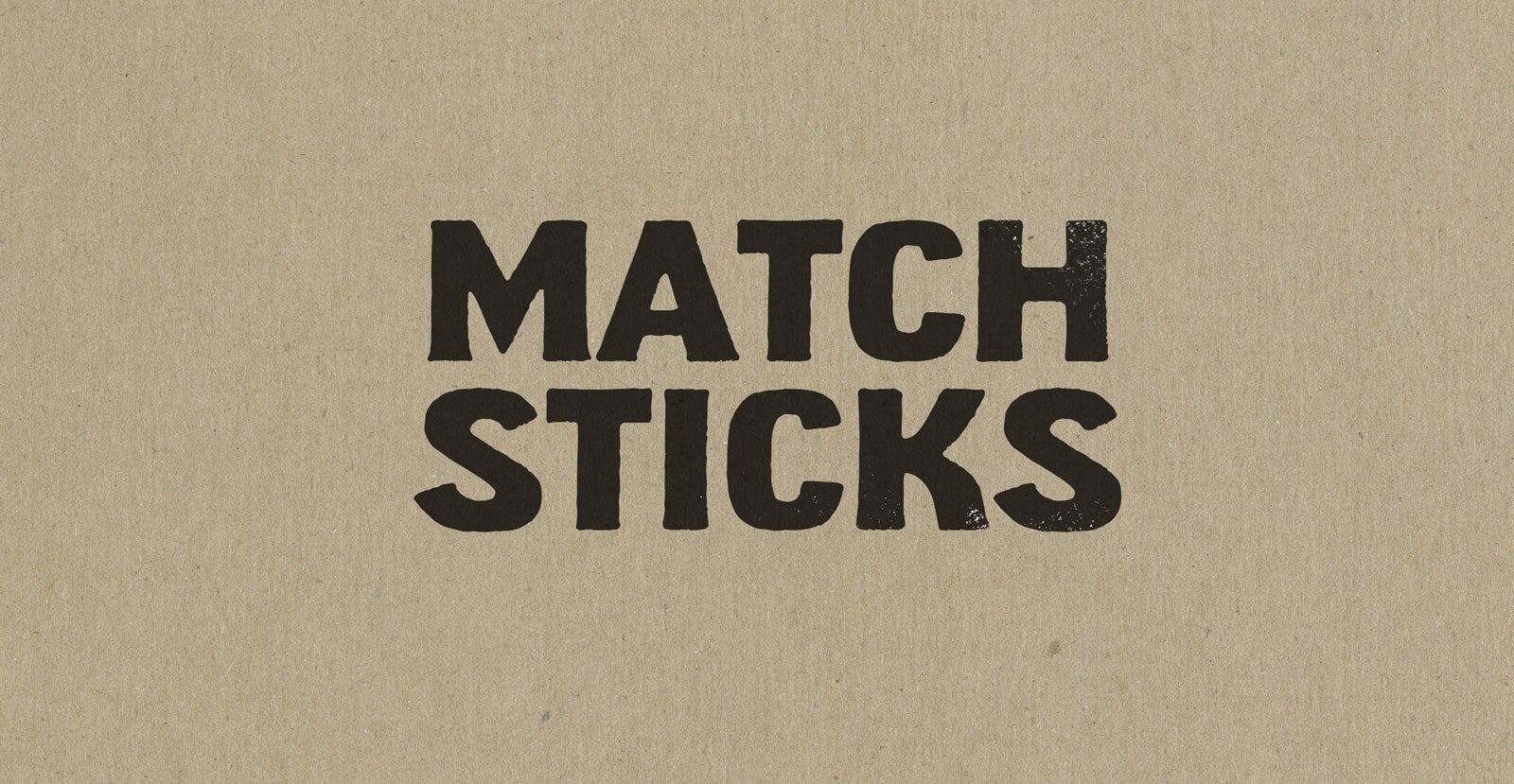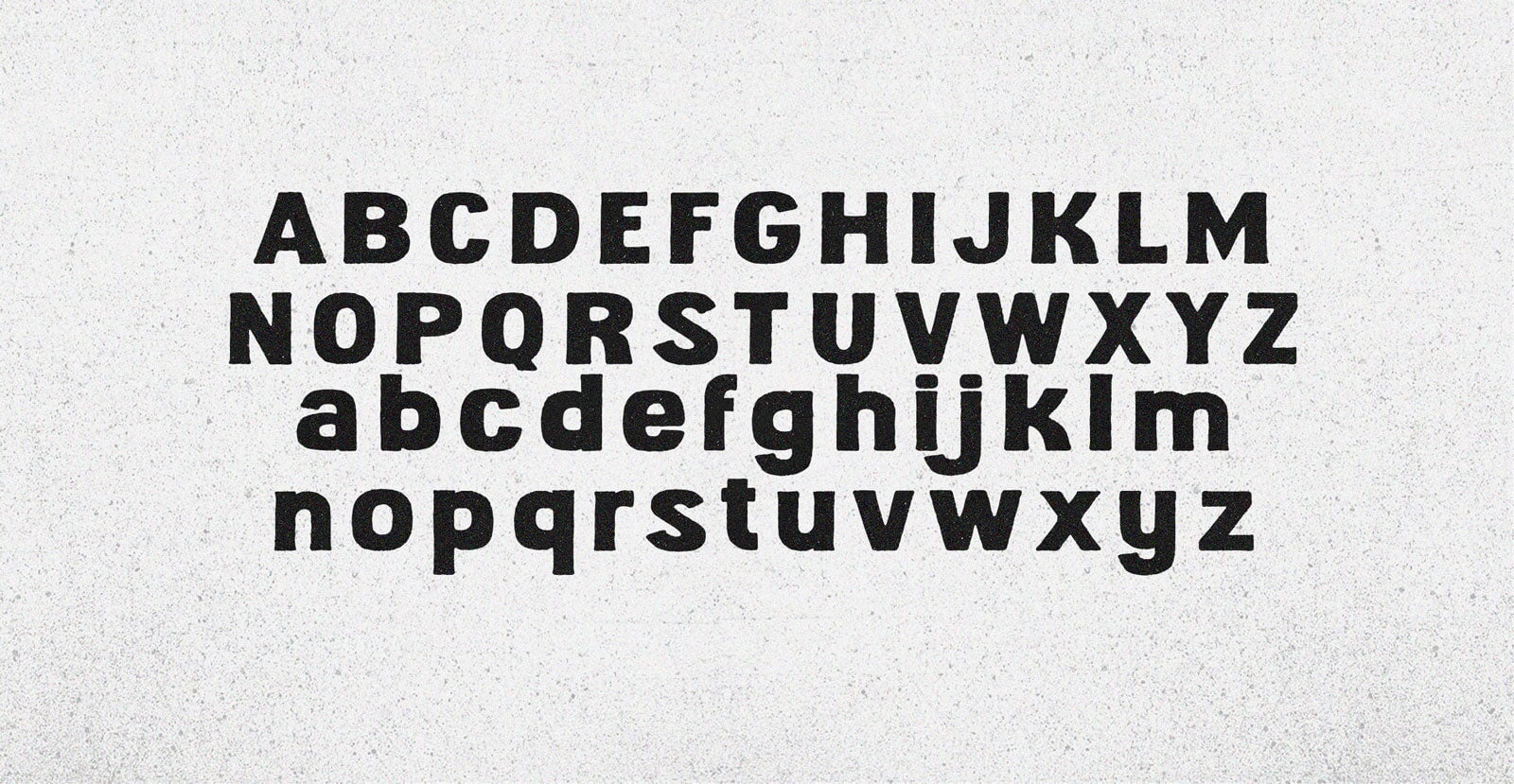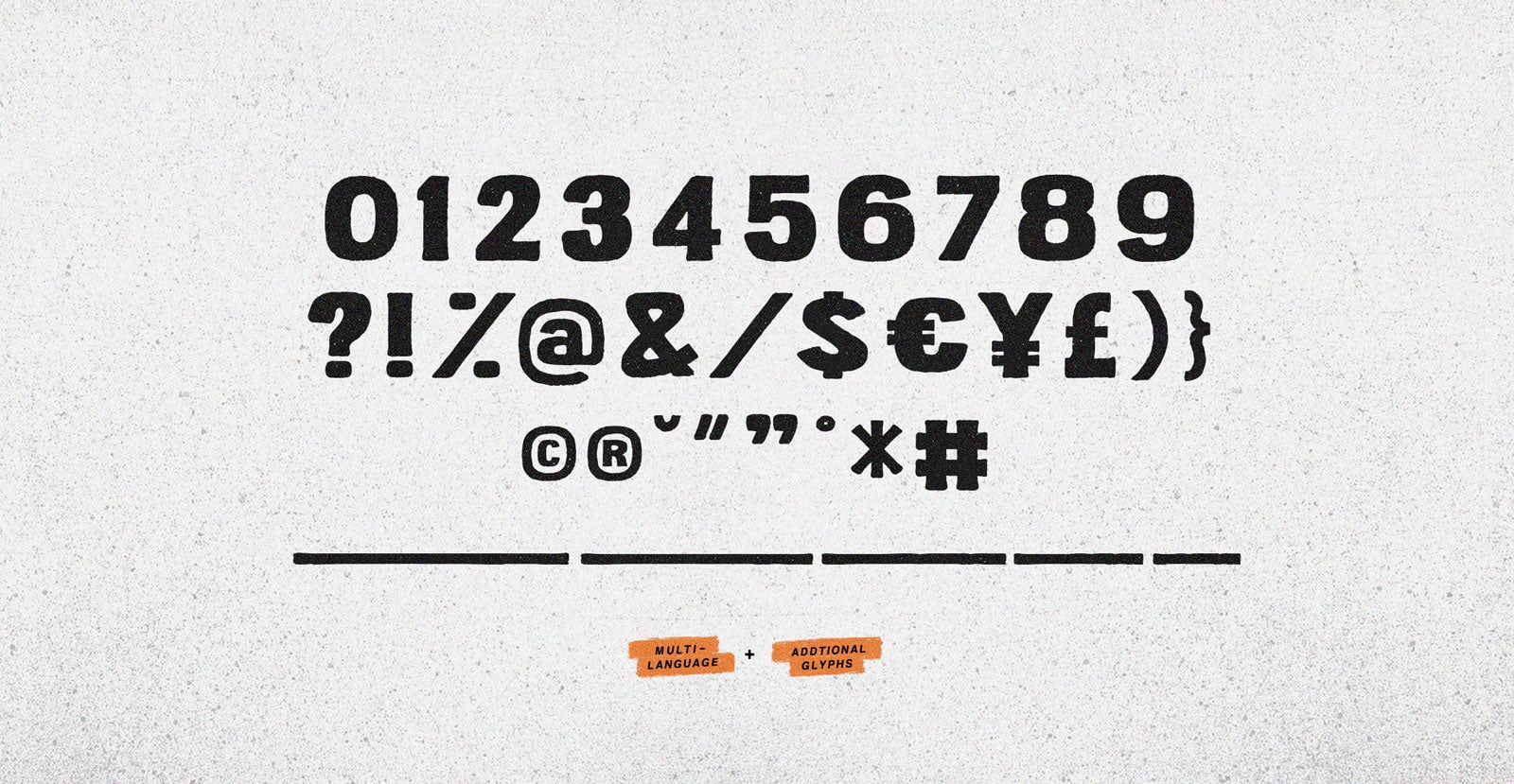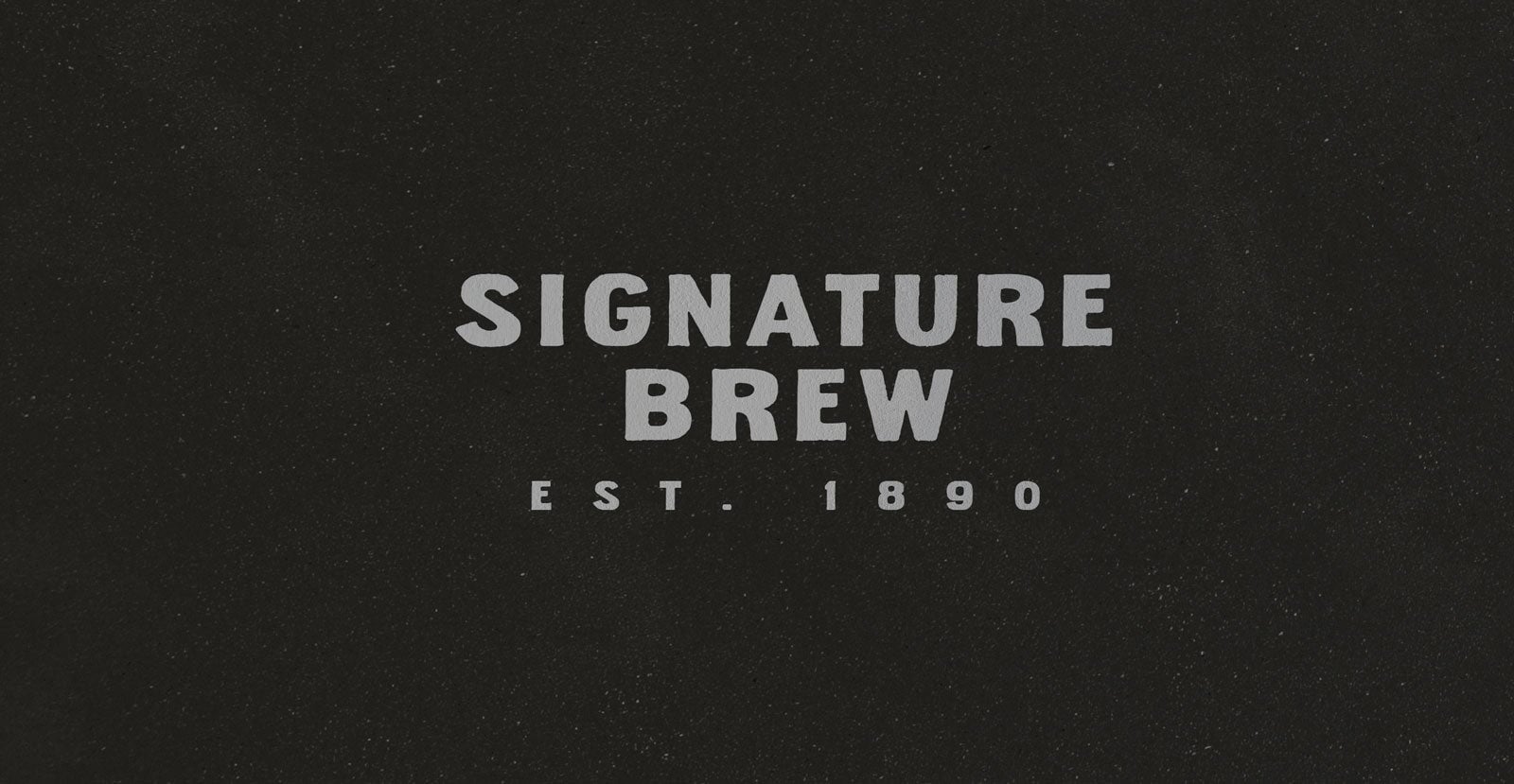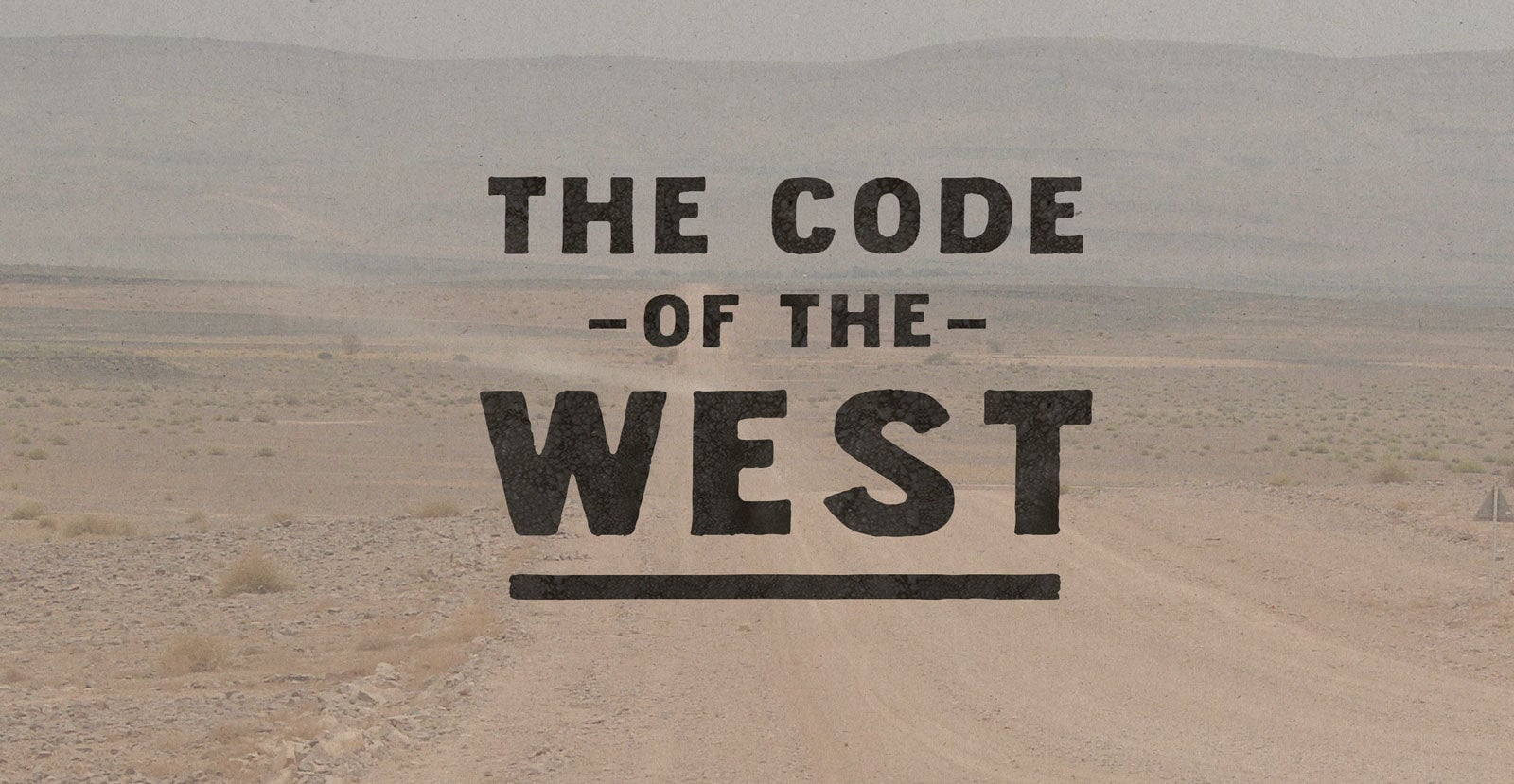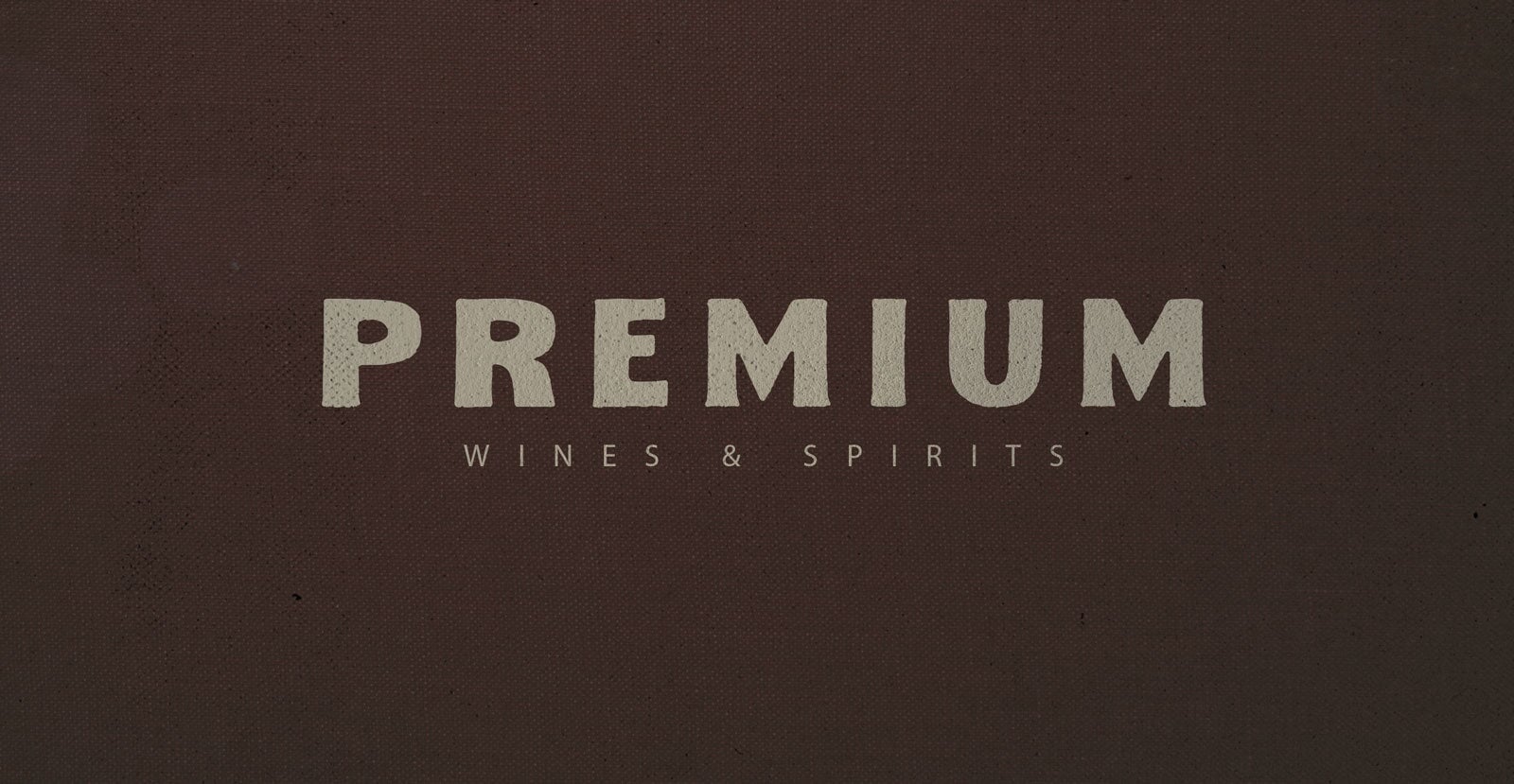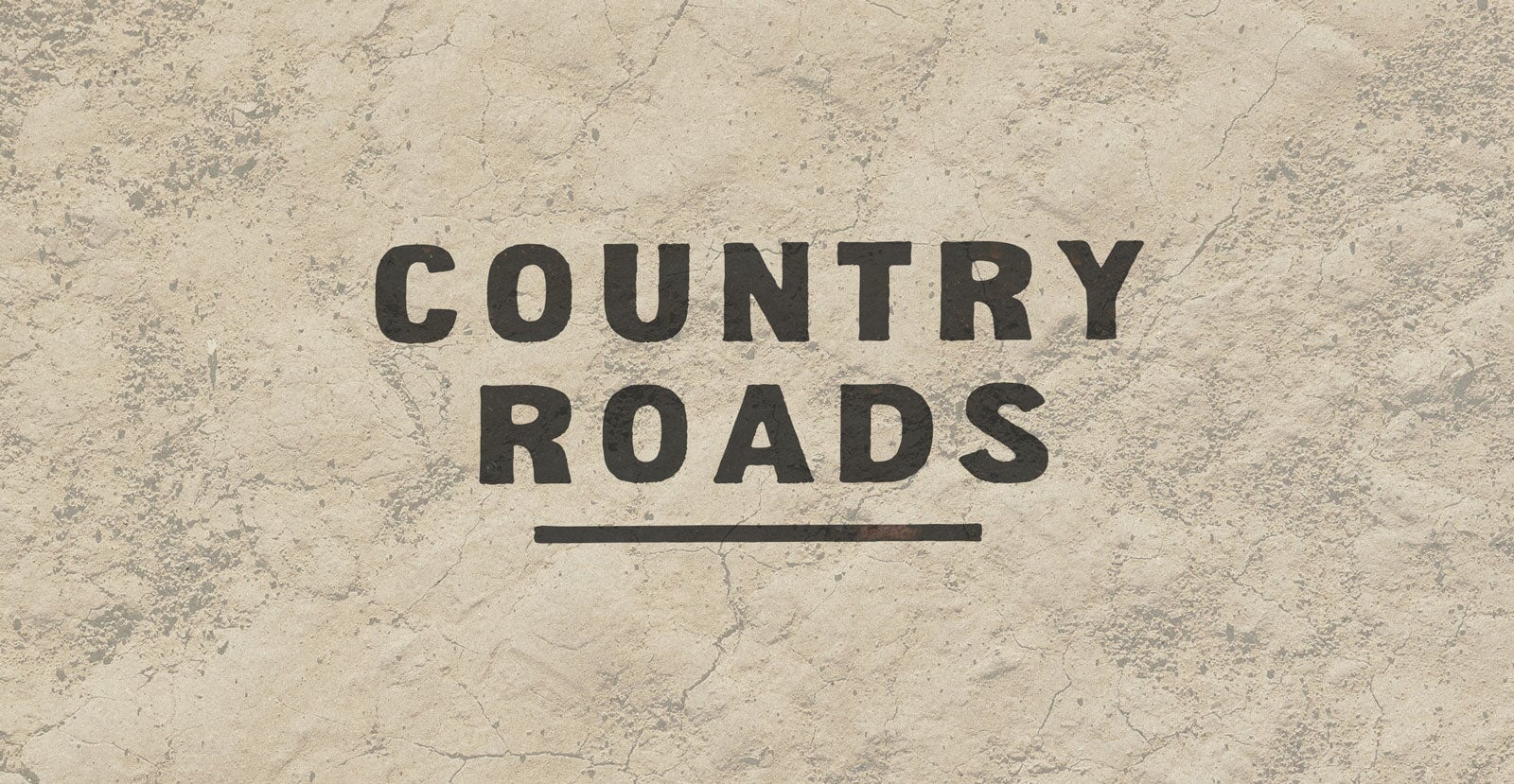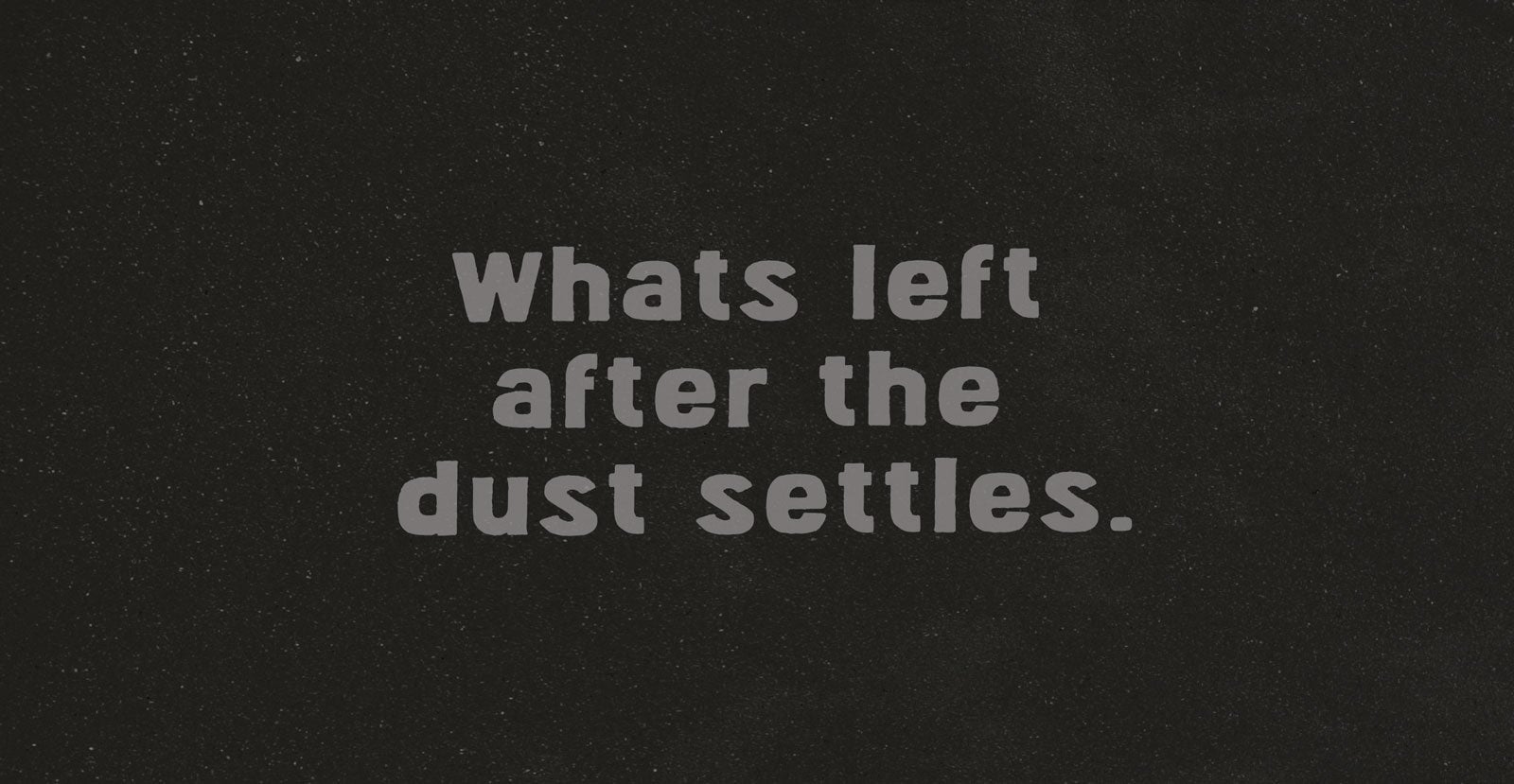
Match Sticks
Handwritten Serif Font
Illuminating Match Sticks. Light the wick, burn the wax. Holding the candle that guides you through the darkness. Wherever you wonder, keep the flame alive.